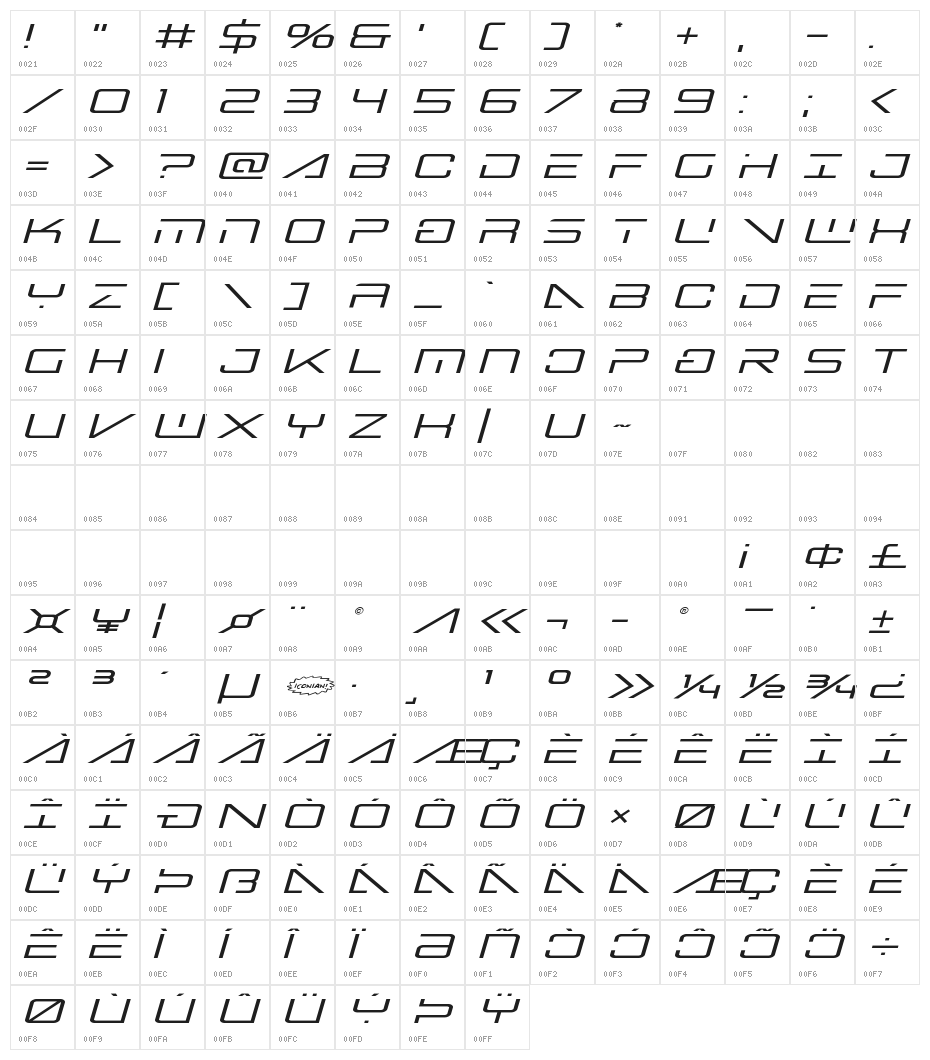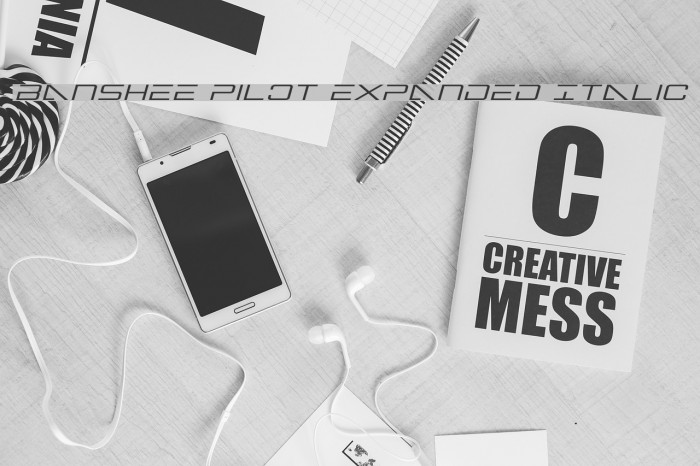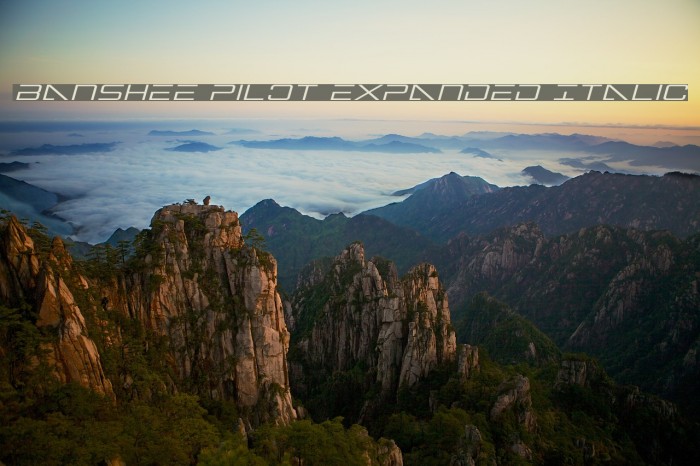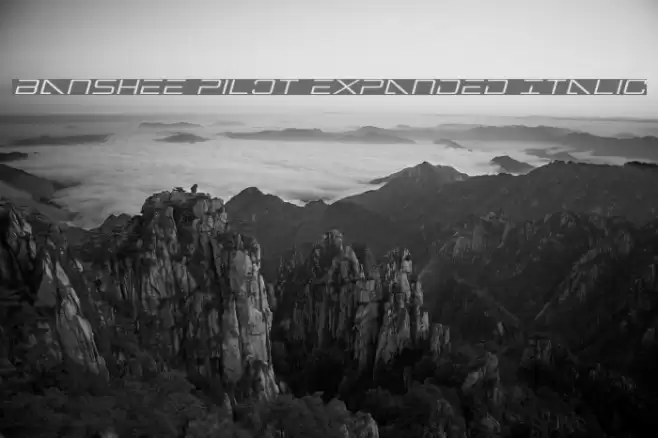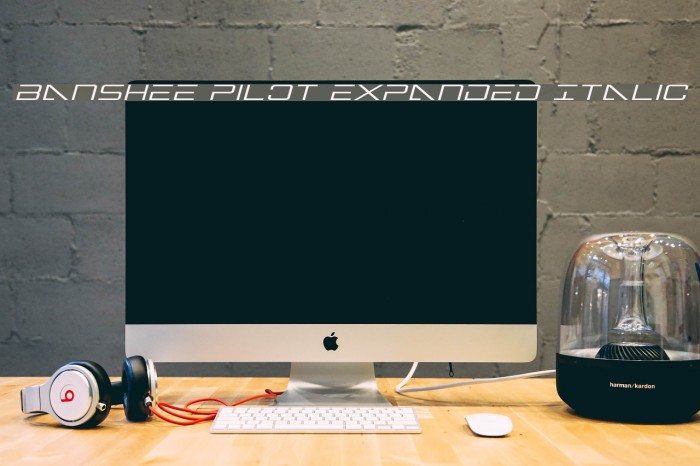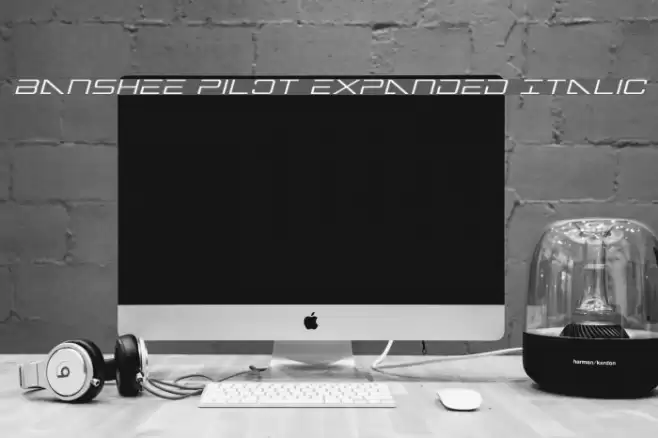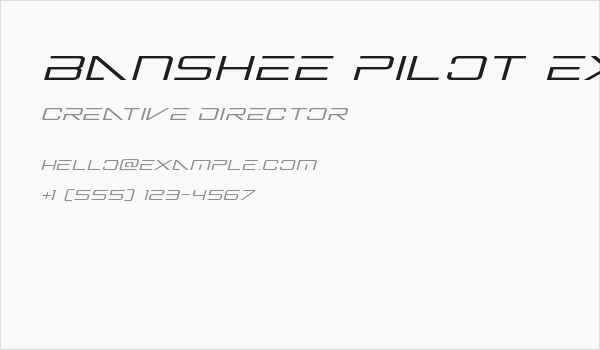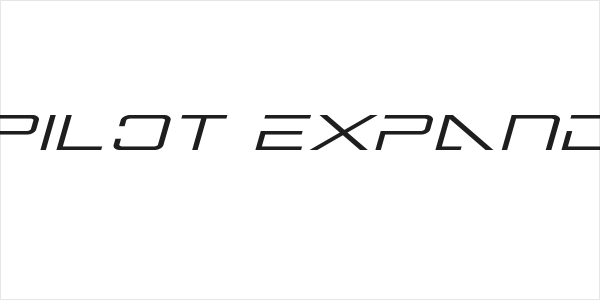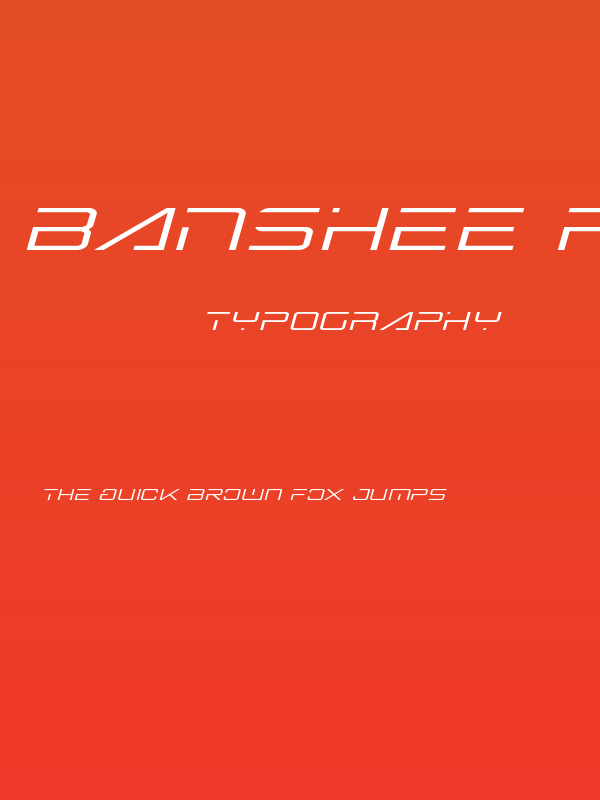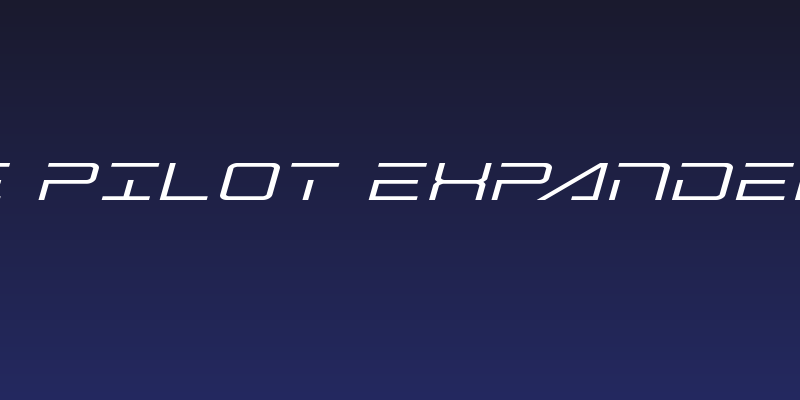
Banshee Pilot Expanded Italic Font
Banshee Pilot Expanded Italic Description
This font features a futuristic and sleek design, characterized by its expanded and italicized letterforms. The angular and geometric shapes give it a dynamic and modern appearance, suitable for conveying a sense of speed and technology. The uppercase and lowercase letters maintain a consistent style, with a slight slant that enhances the italic effect. The numerals and special characters are designed to match the overall aesthetic, ensuring uniformity across all text elements. The font's clean lines and sharp edges make it ideal for projects that require a contemporary and cutting-edge look.